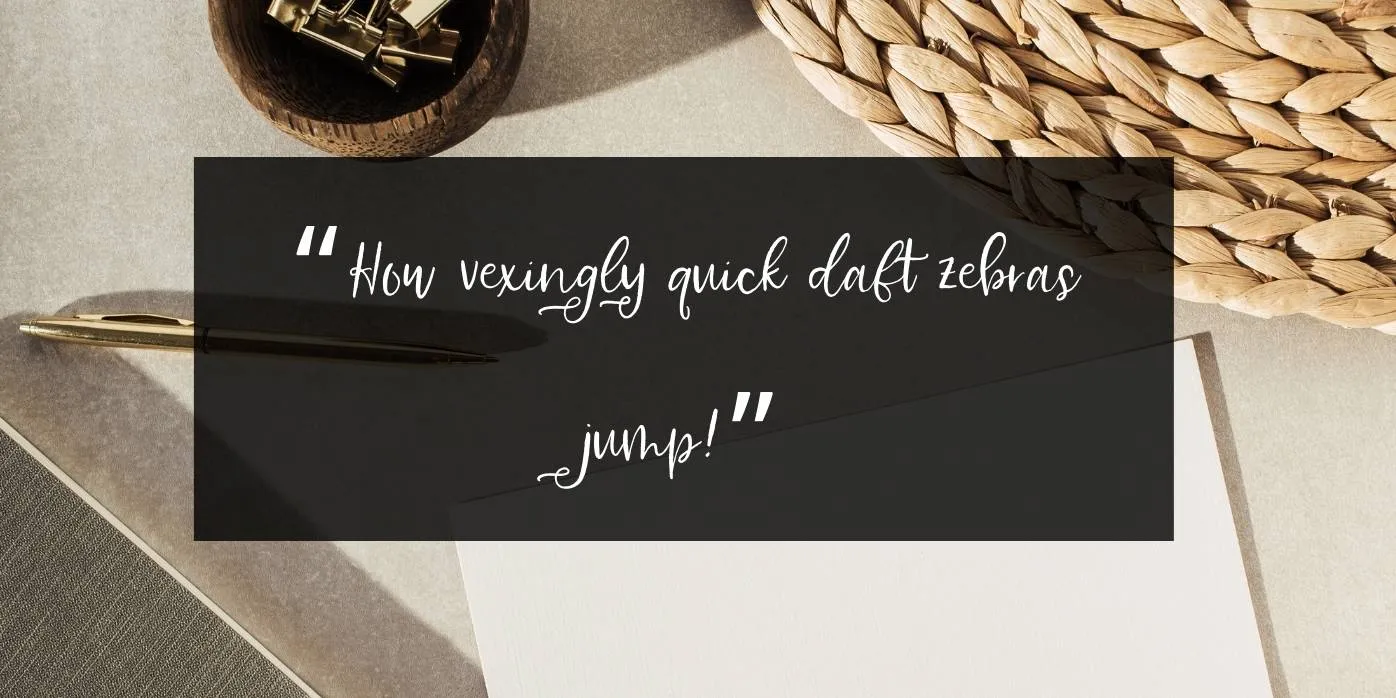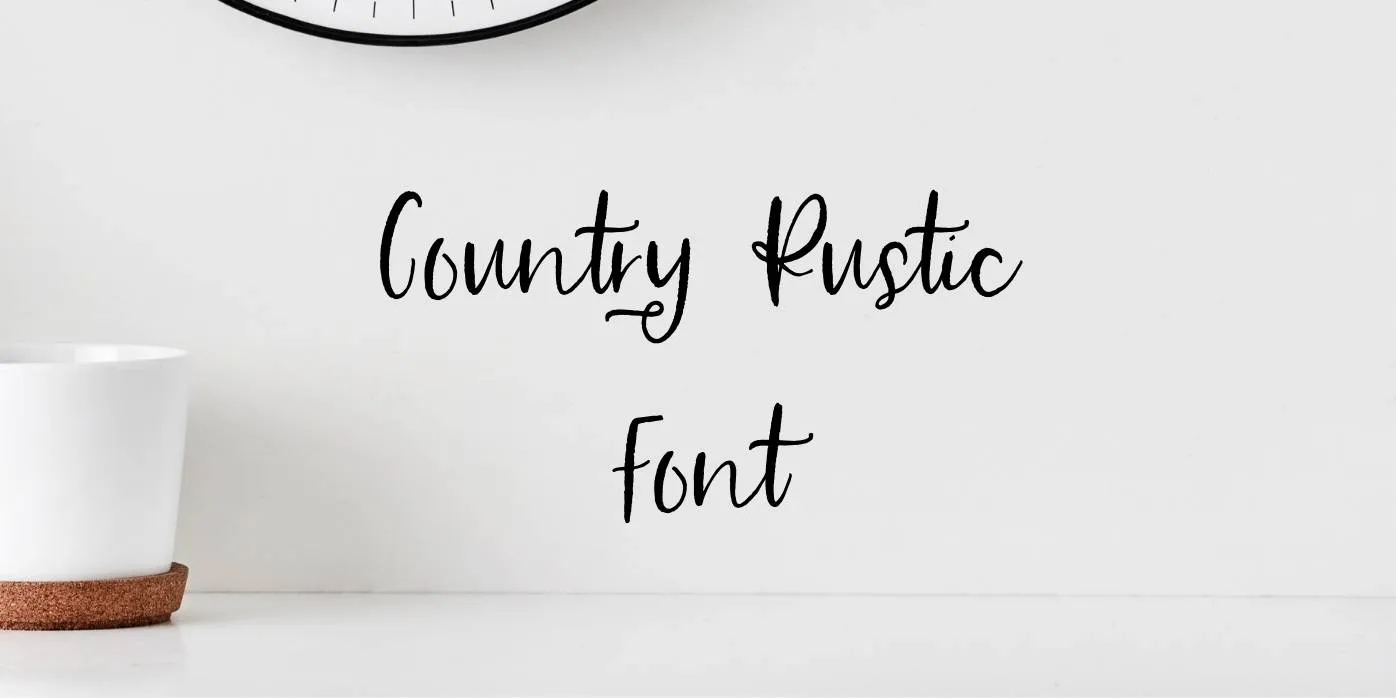
Country Rustic Font
Here, we are going to introduce a new and stylish typeface named Country Rustic Font. This amazing typeface belongs to the Script typeface. This typeface was developed and published by BeckMcCormick. This cute font is perfect for branding, invitations, and other creative projects.
It is best for CSS Family. This amazing font has a unique vintage look that will give your text a stylish touch. This typeface includes a full set of pleasingly weathered uppercase and lowercase letters, as well as multi-lingual support and punctuation marks. Country Rustic Font is available in both TTF and OTF formats.
You can also utilize its copy and paste function. You will have to use its similar december font. This tremendous typeface comes in two unique and classic styles. Whether you are looking to give your text a rustic, country feel or add a touch of vintage charm to your creative project, it is a perfect choice.